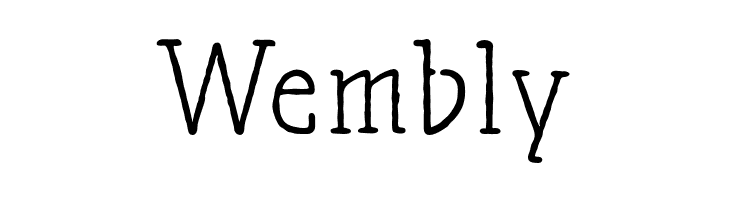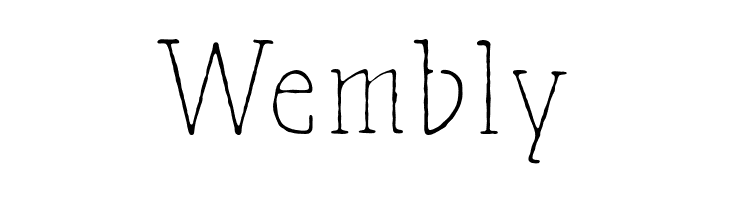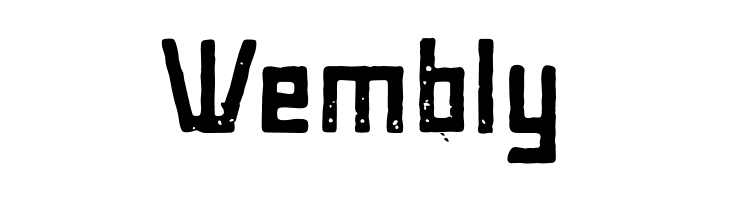
MaiersNeueNr.Proreduced-Halbfet Font
A bold, geometric font with a modern and industrial style.
MaiersNr8-Bold Font
A bold, distressed font with a vintage, industrial aesthetic.
Maiers Nr21 Pro Font
A whimsical and elegant font with playful curves and varying stroke widths.
MaiersNr8-Halbfett Font
A bold, textured font with a rugged and impactful design.
Maiers Nr21 Pro Light Font
A thin, whimsical serif font with a hand-drawn, artistic style.
Maiers Nr21 Pro Bold Font
A bold and decorative font with a blend of traditional and modern elements.
MaiersNeueNr.Proreduced-Leicht Font
A geometric, minimalist font with thin, even strokes and angular shapes.
MaiersNr.21Pro Font
A distinctive, hand-drawn style font with elegant, irregular strokes.
MaiersNr8-Mager Font
A hand-drawn, vintage-style font with tall, narrow characters and an organic feel.
MaiersNr.21Pro-Bold Font
A bold, artistic serif font with unique curves and strong presence.
MaiersNr.21Pro-Light Font
An artistic, handcrafted font with thin, elongated strokes and subtle irregularities.
Maiers Neue Nr.8 Reduced Black Expanded Font
A bold, geometric font with sharp angles and an expanded width.
MaiersNr8-Light Font
A hand-drawn, light font with a geometric yet organic style.
Maiers Neue Nr.8 Reduced Bold Font
A bold, geometric font with strong, angular lines and a modern aesthetic.
Maiers Neue Nr.8 Reduced Black Font
A bold, geometric font with blocky, angular letterforms and a modern, assertive style.
Maiers Neue Nr.8 Reduced Bold Expanded Font
A bold, expanded geometric font with a modern and technical style.
Maiers Neue Nr.8 Reduced Regular Font
A geometric, modern font with angular, boxy letterforms and consistent stroke width.
Maiers Neue Nr.8 Reduced Black Slanted Font
A bold, slanted, and angular font with a modern, dynamic style.
Maiers Alte Nr.8 Reduced Bold Font
A bold, textured font with a vintage, industrial aesthetic.
Maiers Neue Nr.8 Reduced Light Slanted Font